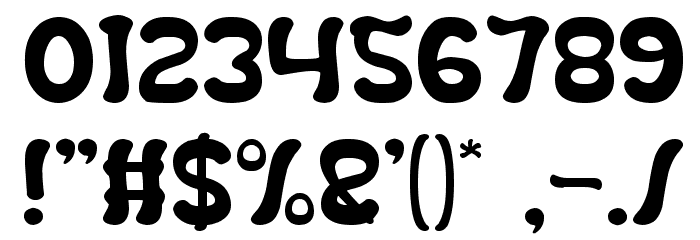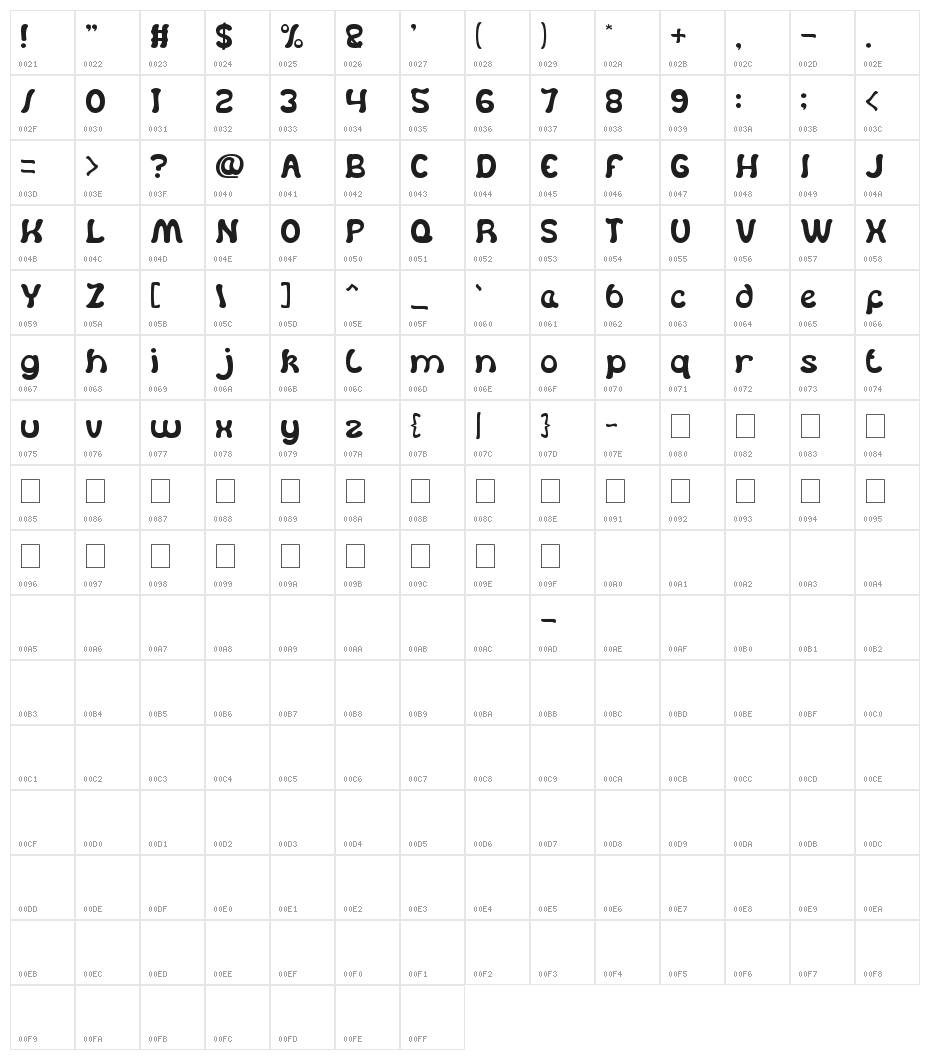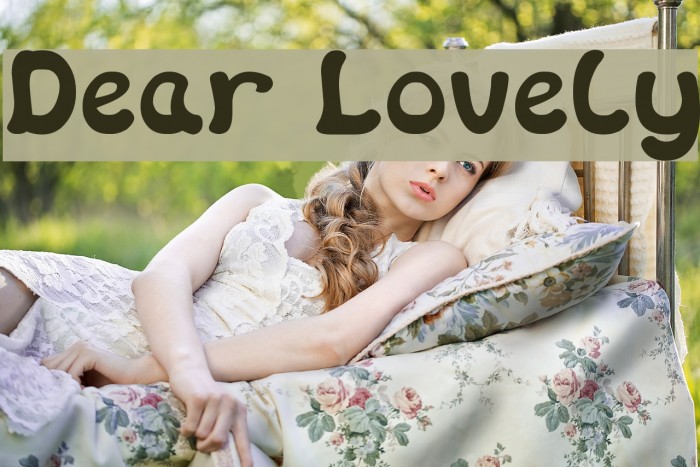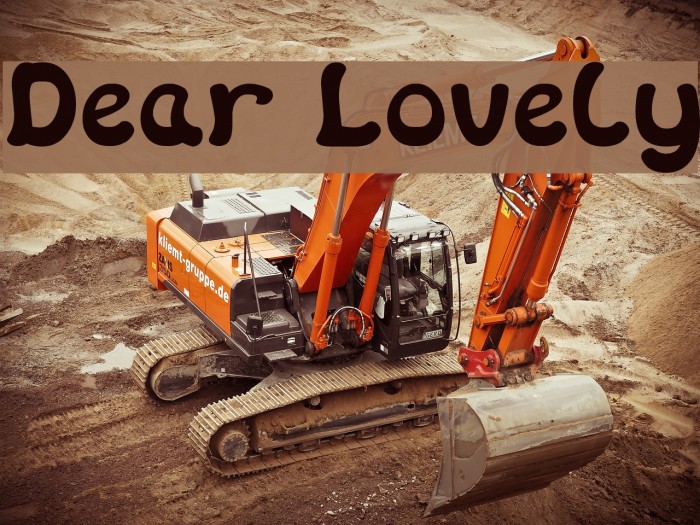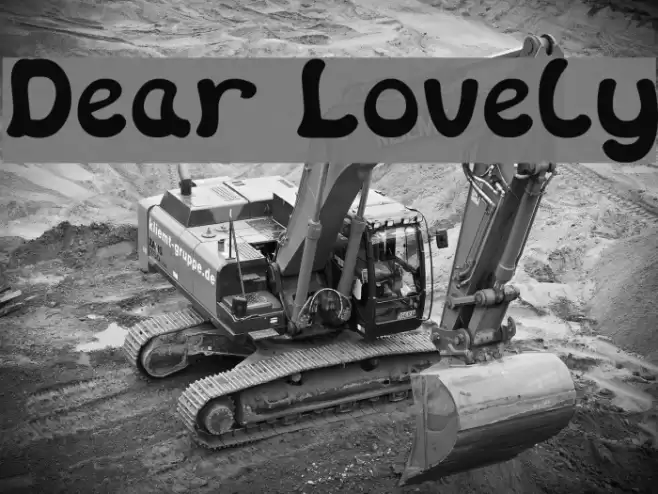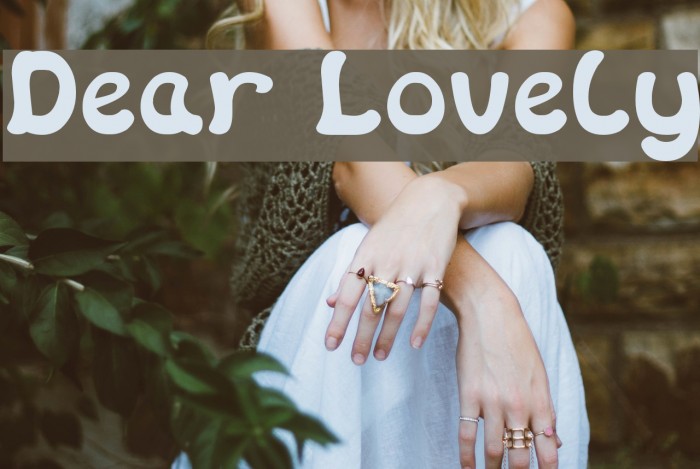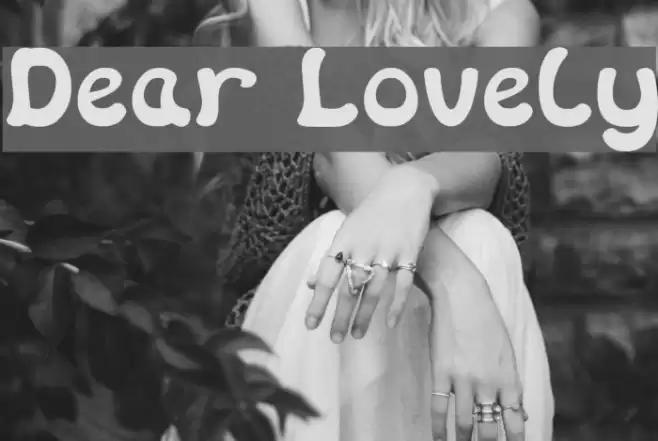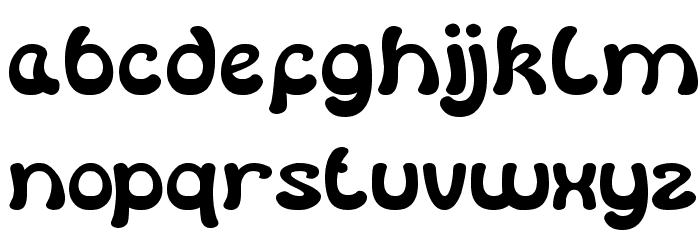
Dear Lovely Font
Dear Lovely Description
This playful and whimsical font features rounded, bubbly characters that convey a sense of fun and friendliness. The letters have a soft, flowing appearance with consistent stroke thickness, giving them a cohesive and approachable look. The uppercase and lowercase letters maintain a uniform style, while the numerals and special characters complement the overall design. This font's unique style makes it stand out, making it ideal for projects that require a touch of creativity and warmth.
Overall StylePlayful, Whimsical
Proposed ProjectsIdeal for children's books, playful branding, greeting cards, and creative posters.